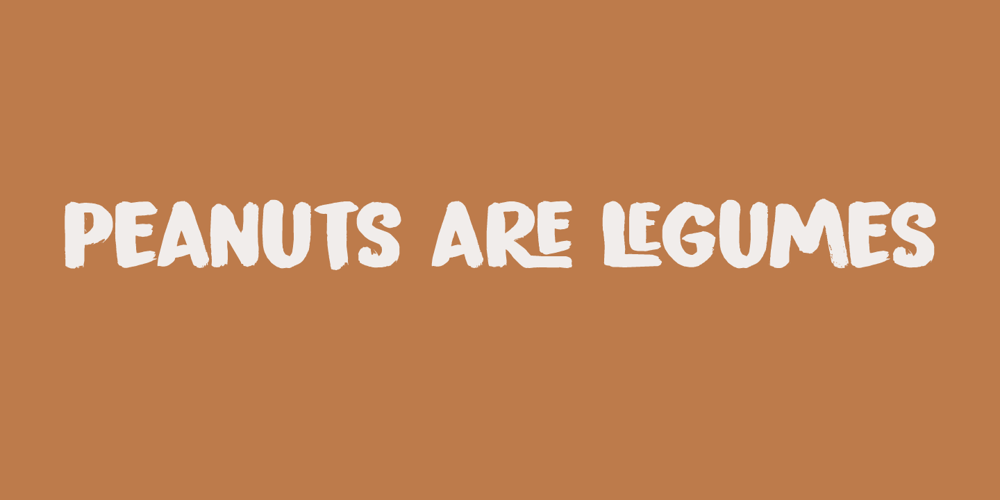
Peanut Crunch Font Family was designed by David Kerkhoff and published by Hanoded. Peanut Crunch contains 2 styles and family package options. I really like peanuts! My family and I often eat an Indonesian snack called Rempeyek, which is a deep fried, battered peanut cracker and I was probably craving one when I made this font. Peanut Crunch is a hand painted display font. It comes with some alternates and a bunch of ligatures for you to play around with.